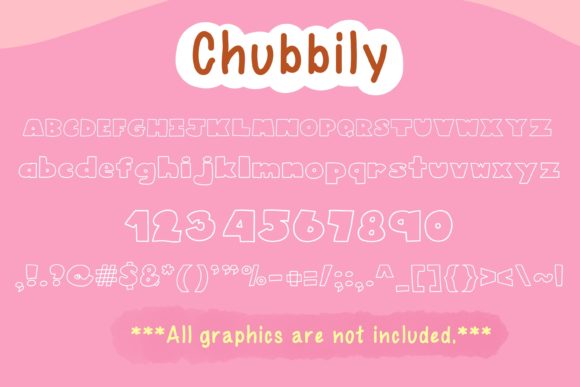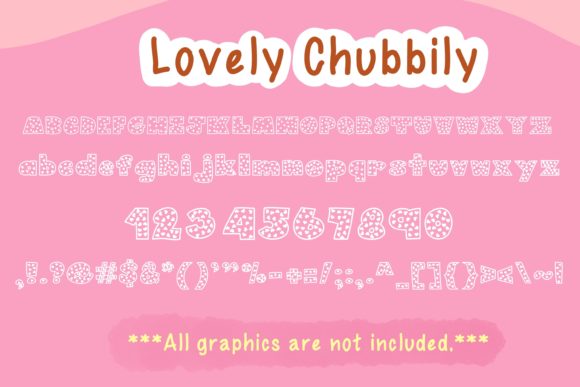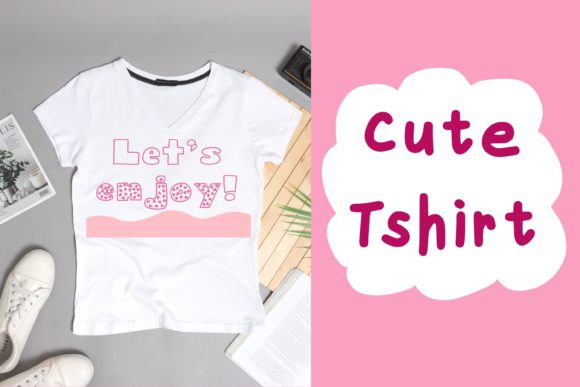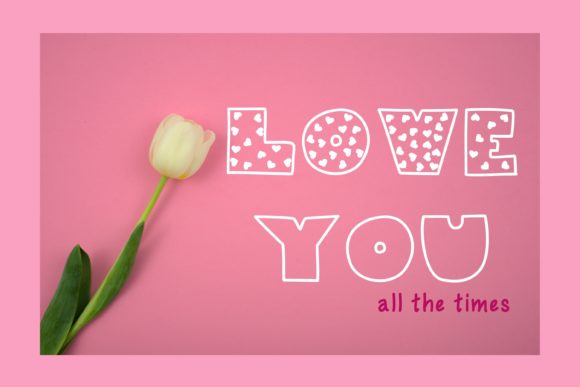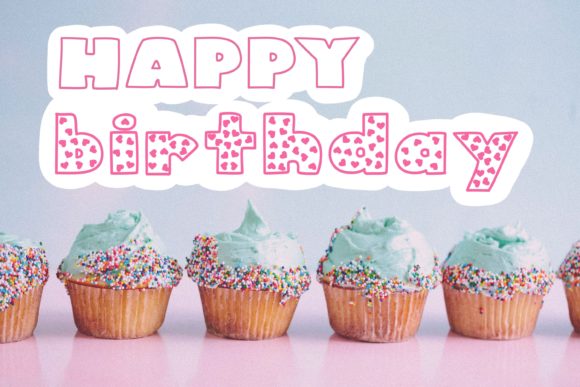
Introducing Chubbily and Lovely Chubbily: The Ultimate Duo Font for Adding a Jolly Touch to Your Designs
Are you tired of using the same old fonts in your designs? Do you want to add a playful and trendy vibe to your creations? Look no further than Chubbily and Lovely Chubbily, the adorable duo font that’s sure to brighten up any design. This absolutely adorable duo font (display and decorative) can add a jolly feel to any of your beautiful creations! It will brighten up any design and create a trendy vibe!
What is Chubbily and Lovely Chubbily Font?
Chubbily and Lovely Chubbily are two complementary fonts that are designed to work together to create a unique and eye-catching look. Chubbily is a display font, perfect for headlines and titles, while Lovely Chubbily is a decorative font, ideal for adding a touch of whimsy to your designs. Both fonts feature a playful, rounded design that’s sure to add a smile to anyone’s face.
Key Features of Chubbily and Lovely Chubbily Font
- Playful and Rounded Design: Both fonts feature a fun, rounded design that’s perfect for adding a playful touch to your designs.
- Complementary Fonts: Chubbily and Lovely Chubbily are designed to work together, creating a unique and eye-catching look.
- Display and Decorative Fonts: Chubbily is a display font, perfect for headlines and titles, while Lovely Chubbily is a decorative font, ideal for adding a touch of whimsy to your designs.
- Trendy and Modern: These fonts are perfect for designers who want to create modern and trendy designs that stand out from the crowd.
How to Use Chubbily and Lovely Chubbily Font in Your Designs
Using Chubbily and Lovely Chubbily in your designs is easy. Here are a few ideas to get you started:
- Headlines and Titles: Use Chubbily as a display font for headlines and titles, and Lovely Chubbily as a decorative font for adding a touch of whimsy.
- Social Media Graphics: Use these fonts to create eye-catching social media graphics that are sure to grab attention.
- Invitations and Party Decor: Use Lovely Chubbily to create adorable invitations and party decor that will add a touch of whimsy to any celebration.
- Branding and Packaging: Use Chubbily and Lovely Chubbily to create a unique and eye-catching brand identity that will set your business apart.
Why Choose Chubbily and Lovely Chubbily Font?
There are many reasons why you should choose Chubbily and Lovely Chubbily for your designs. Here are a few:
- Unique and Eye-Catching: These fonts are sure to add a unique and eye-catching touch to your designs.
- Playful and Fun: Chubbily and Lovely Chubbily are perfect for designers who want to add a playful and fun touch to their designs.
- High-Quality: These fonts are high-quality and come with a range of features, including a range of characters and symbols.
- Easy to Use: Chubbily and Lovely Chubbily are easy to use and come with a user-friendly design.
In conclusion, Chubbily and Lovely Chubbily are the perfect duo fonts for designers who want to add a jolly touch to their designs. With their playful and rounded design, these fonts are sure to brighten up any design and create a trendy vibe. Whether you’re a designer, crafter, or DIY enthusiast, Chubbily and Lovely Chubbily are a must-have font duo for any project.